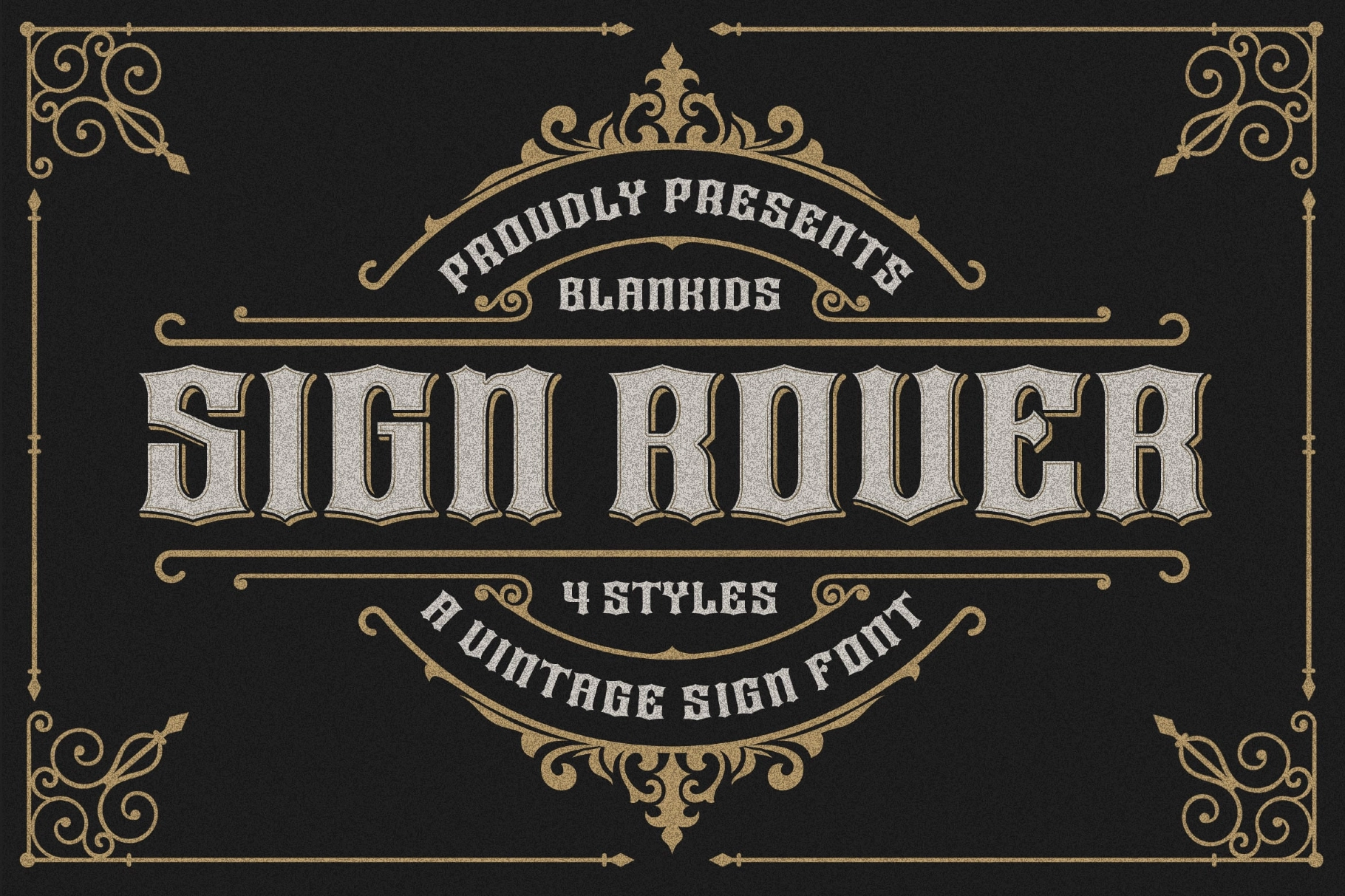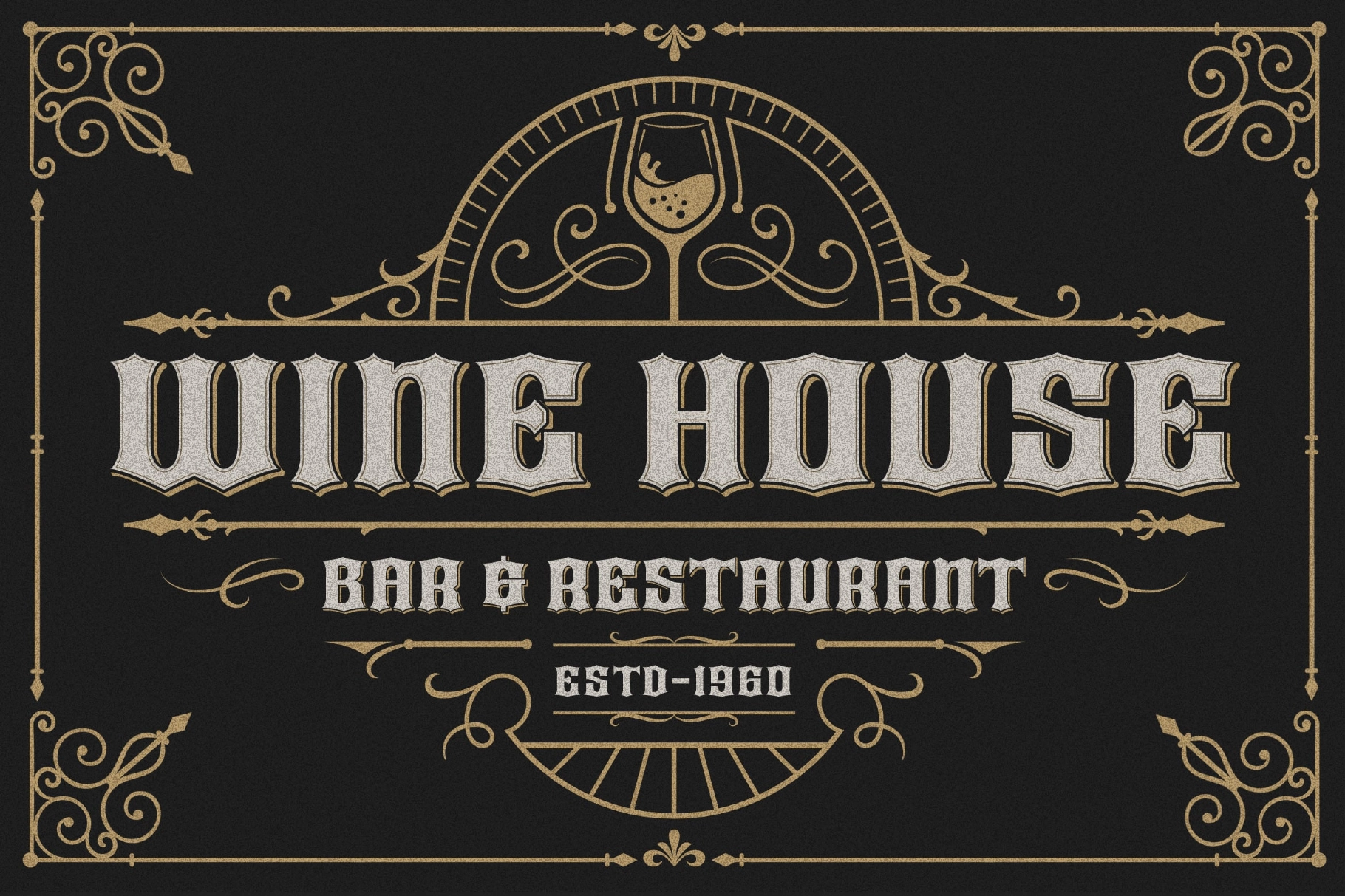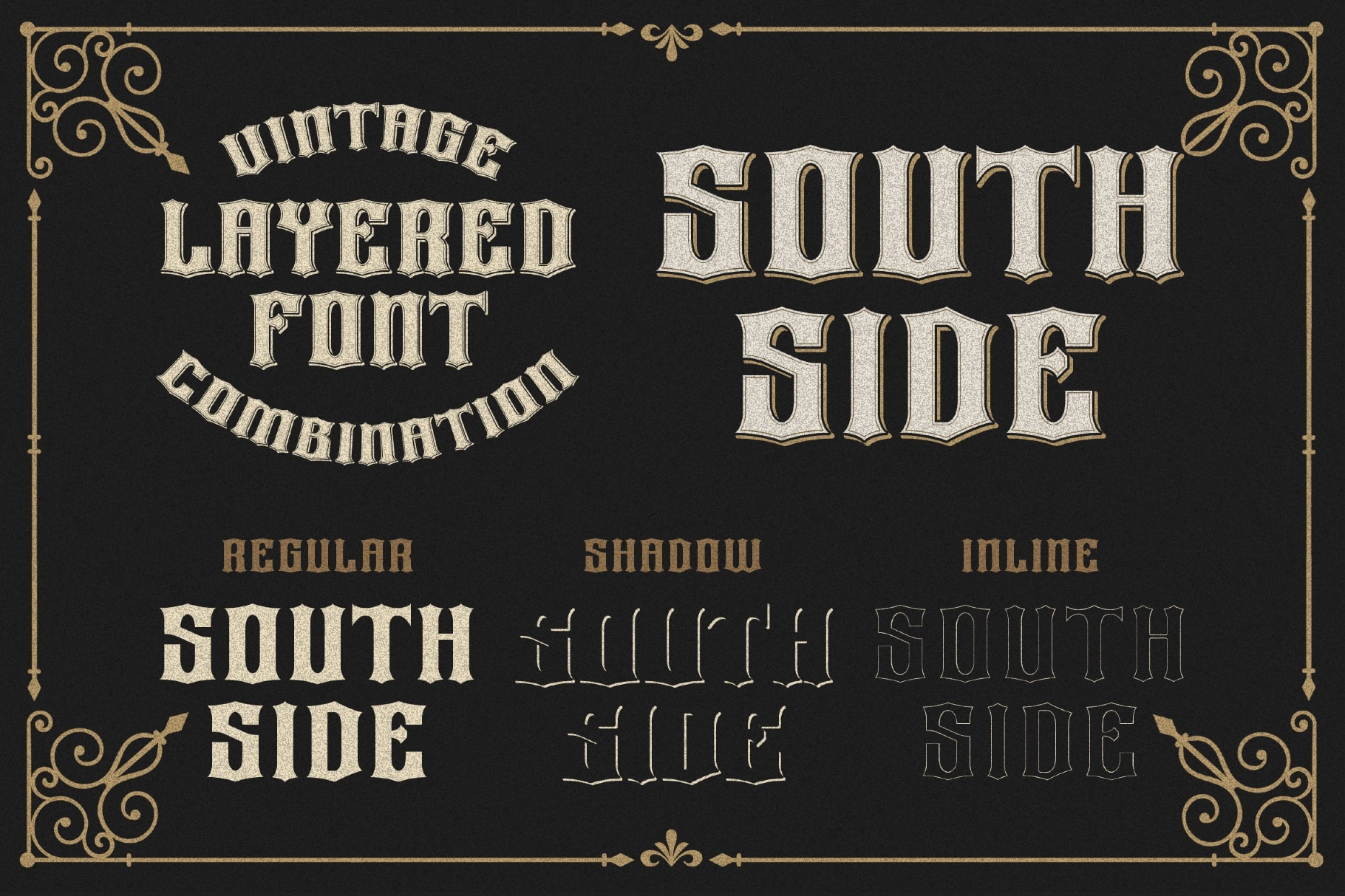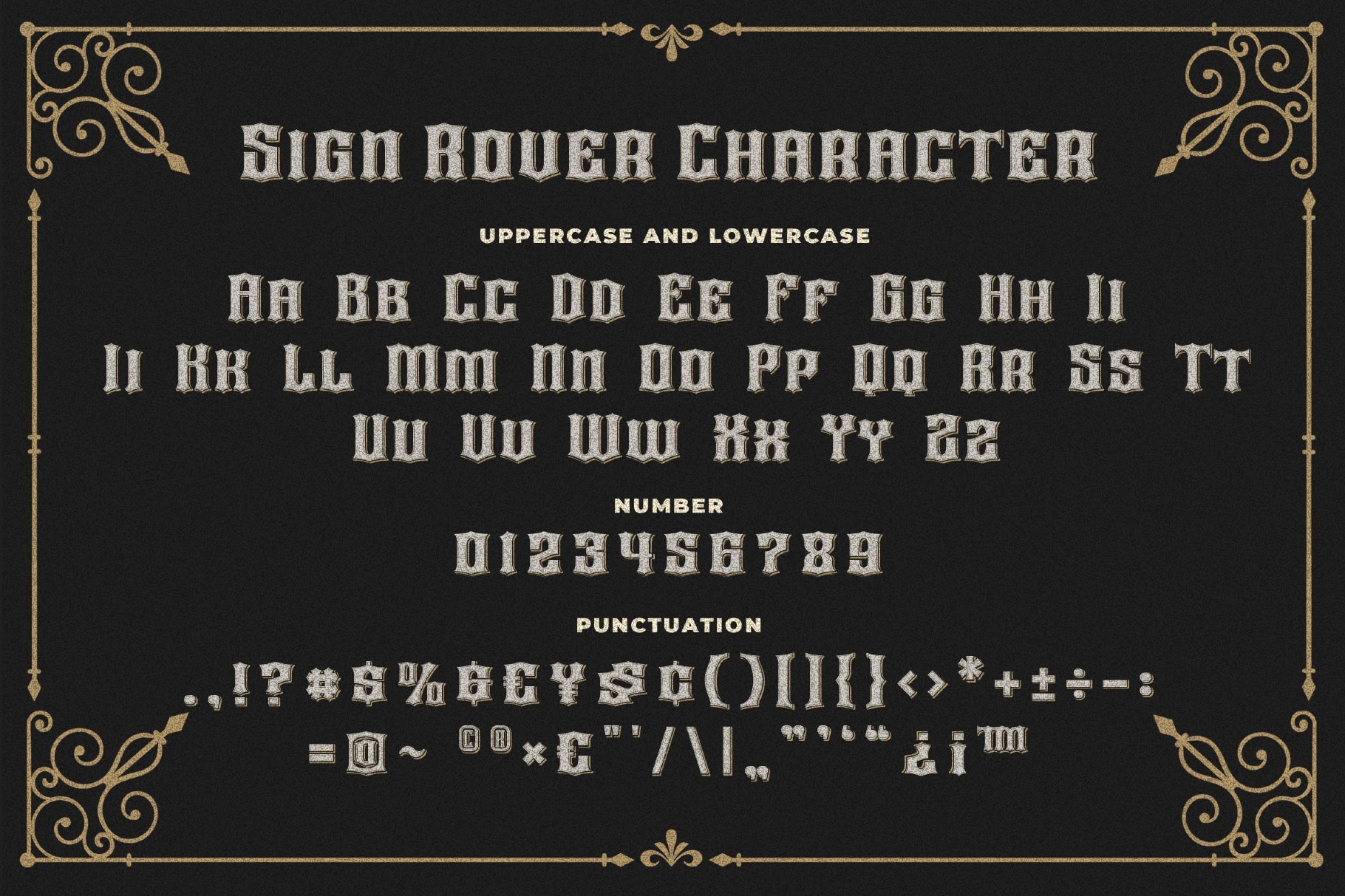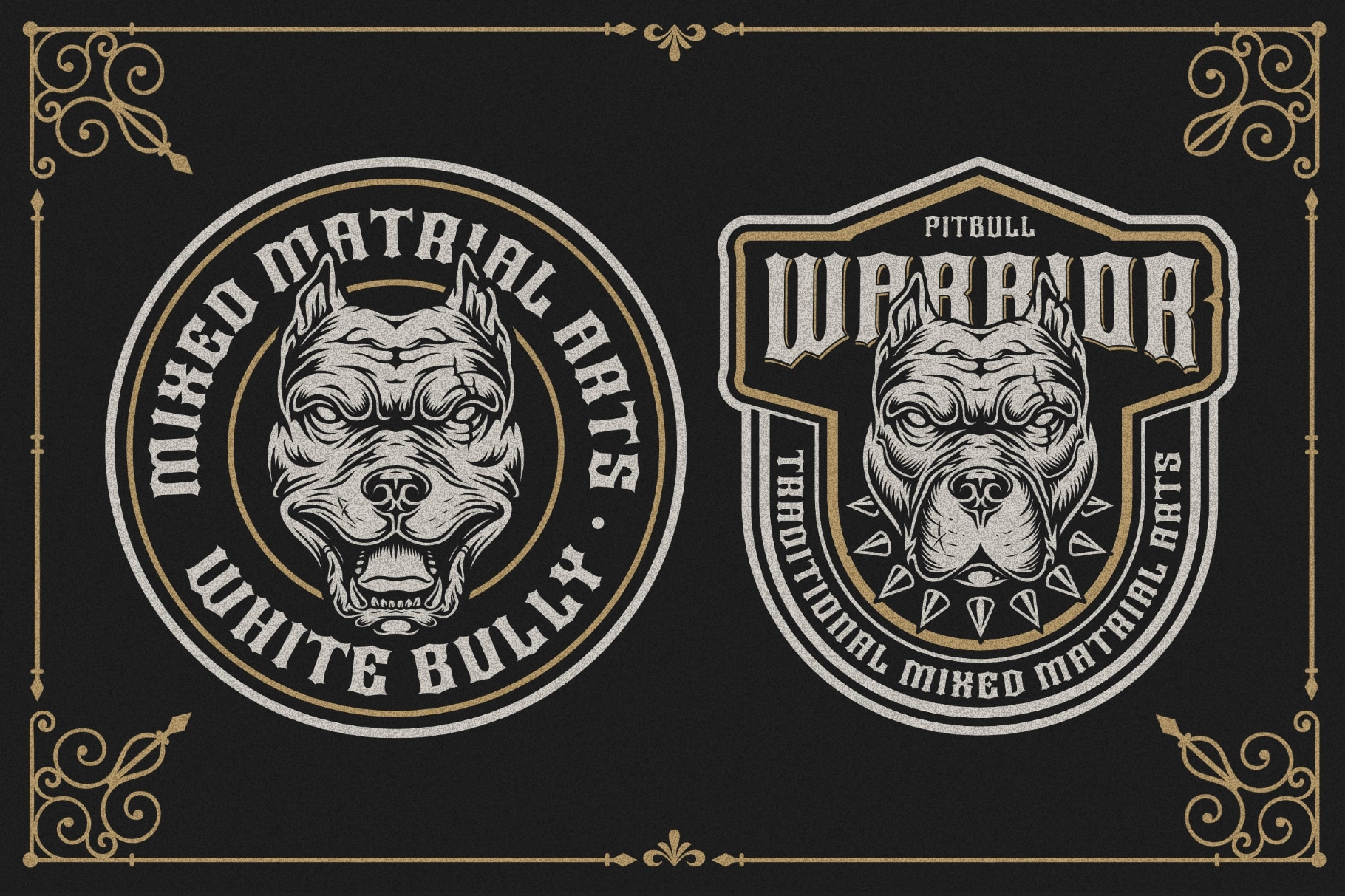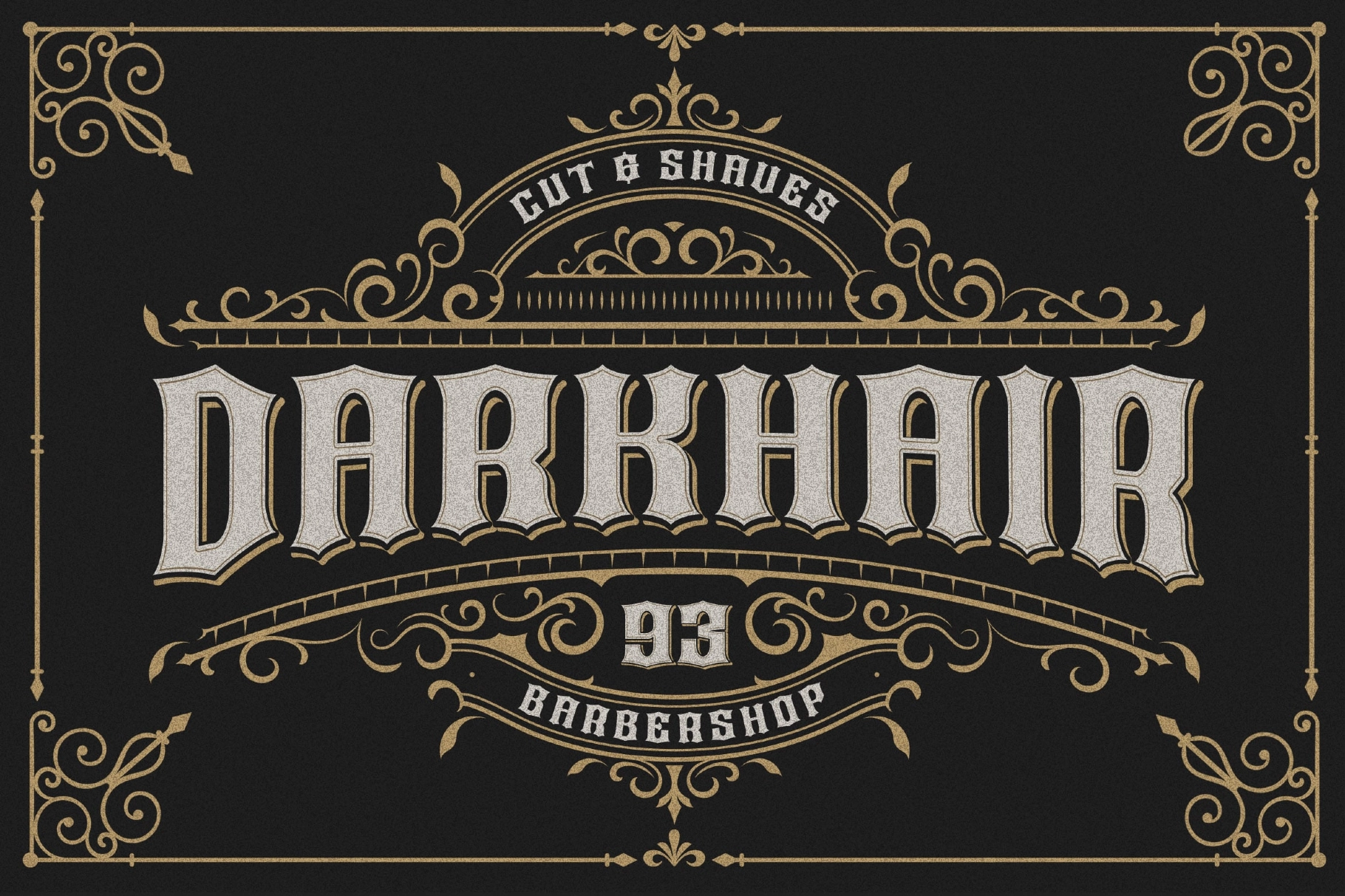
Sign Rover a Vintage Sign Display Font
Sign Rover a Vintage Sign Display Font is a classic display typeface inspired by traditional signage and heritage lettering styles. Its strong vintage structure and decorative details create an authentic old-school look that perfectly captures the character of retro shop signs and handcrafted typography.
Designed to bring nostalgic charm to modern projects, this font works beautifully for posters, packaging, branding, merchandise, logotypes, book covers, and vintage label designs. Sign Rover delivers bold personality and timeless appeal for any project that needs a classic sign-painting aesthetic.
- Styles: Regular, Inline, Shadow, Layered
- Uppercase & lowercase characters
- Numbers & punctuation